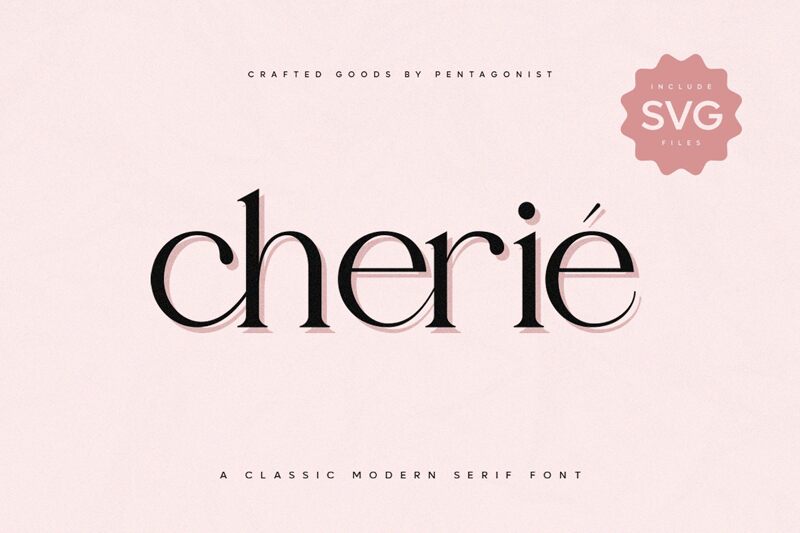
Cherie, a creation of Pentagonistudio, stands out with its sophisticated serif strokes that evoke an air of elegance and refinement. Its letterforms display a harmonious blend of traditional charm and modern finesse, making it a versatile choice for those seeking a font with character and class. The serifs add a touch of formality, while the smooth curves suggest a friendly approachability.
Ideal for editorial design, branding, and upscale marketing materials, Cherie lends itself to applications where style and readability are paramount. Whether gracing the pages of a boutique's lookbook or anchoring the identity of an artisanal café, this font exudes luxury without sacrificing clarity—perfect for designers aiming to impart an aura of exclusivity and sophistication.